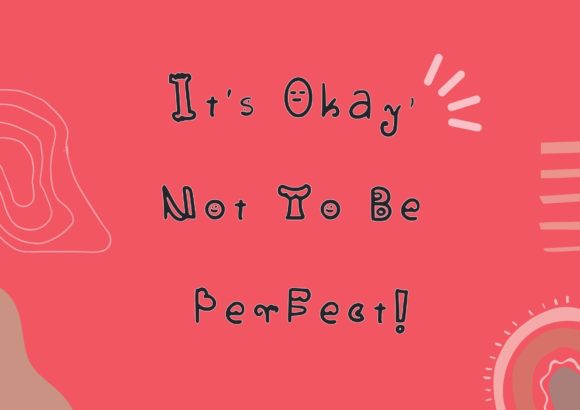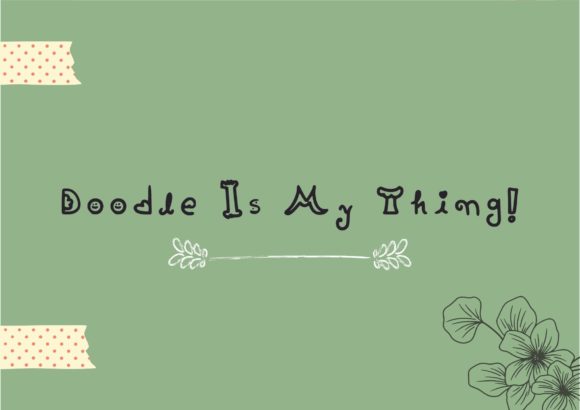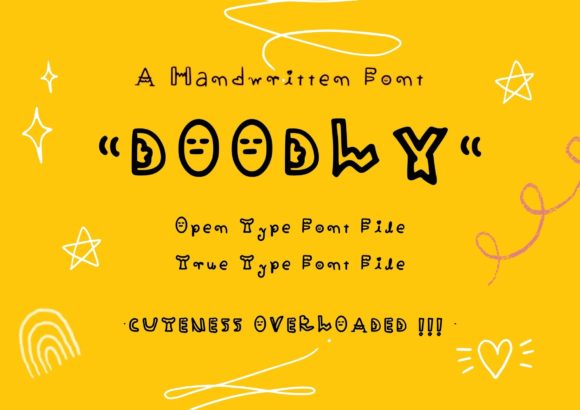
Discover the Charm of Doodly Font: Elevate Your Designs with a Touch of Whimsy
Are you a designer, crafter, or artist looking for a font that adds a dash of personality to your projects? Look no further than the Doodly Font! This informal, cool, cute, and sweet decorative font is perfect for a wide range of creative endeavors, from back-to-school projects to festive holiday designs. In this article, we’ll dive into the world of Doodly Font and explore its endless possibilities.
A Font for Every Occasion
One of the best things about Doodly Font is its versatility. It’s suitable for various themes and occasions, including:
- Back-to-school projects: Add a playful touch to your school-themed designs, such as stickers, posters, and worksheets.
- Christmas, Winter, Summer, Autumn, Spring, Easter, Valentine, Halloween, Thanksgiving, St. Patrick, and Earth Day: Create festive designs for holidays and special events.
- Bedroom, Kitchen, Bathroom, Living Room, and Garden: Design personalized decor and accessories for any room in the house.
- Fruits and Vegetables: Create colorful and fun designs for food-related projects, such as labels, packaging, and posters.
Doodly Font is not just limited to a specific type of design. Its playful and whimsical nature makes it perfect for:
- Quotes: Add a touch of personality to your inspirational quotes and sayings.
- Brands and Logos: Create unique and memorable logos for your business or personal brand.
- Greeting Cards and Invitations: Design personalized cards and invites for special occasions.
- Stationery Designs: Create custom notebooks, journals, and stationery sets.
- Children’s Designs: Develop engaging and interactive designs for kids, such as coloring books and activity sheets.
- T-shirts and Apparel: Add a fun and playful touch to your clothing designs.
- Packaging Designs: Create eye-catching packaging for products, such as candies, toys, and crafts.
- Posters and Typographic Designs: Design bold and colorful posters and typographic prints.
- Papercrafts and Digital Crafts: Use Doodly Font to create intricate paper designs and digital art.
Perfect for Crafters and Graphic Artists
Doodly Font is an ideal choice for crafters and graphic artists who want to add a personal touch to their designs. Its compatibility with popular design tools like Photoshop and design studios makes it easy to incorporate into your workflow.
Whether you’re a seasoned designer or a beginner crafter, Doodly Font is a great addition to your font collection. Its unique and playful style is sure to make your designs stand out and leave a lasting impression.
Tips and Tricks for Using Doodly Font
To get the most out of Doodly Font, here are some tips and tricks to keep in mind:
- Combine Doodly Font with other fonts and graphics to create unique and complex designs.
- Use Doodly Font to create custom illustrations and graphics, such as icons and graphics.
- Don’t be afraid to get creative and try new things – Doodly Font is all about experimentation and self-expression!
In conclusion, Doodly Font is a versatile and playful decorative font that’s perfect for designers, crafters, and artists of all levels. Its wide range of uses and applications makes it an excellent addition to any creative project. So why not give Doodly Font a try and see how it can elevate your designs to the next level?
With its endless possibilities and creative freedom, Doodly Font is sure to become a favorite in your font collection. So go ahead, get creative, and make your designs pop with Doodly Font!